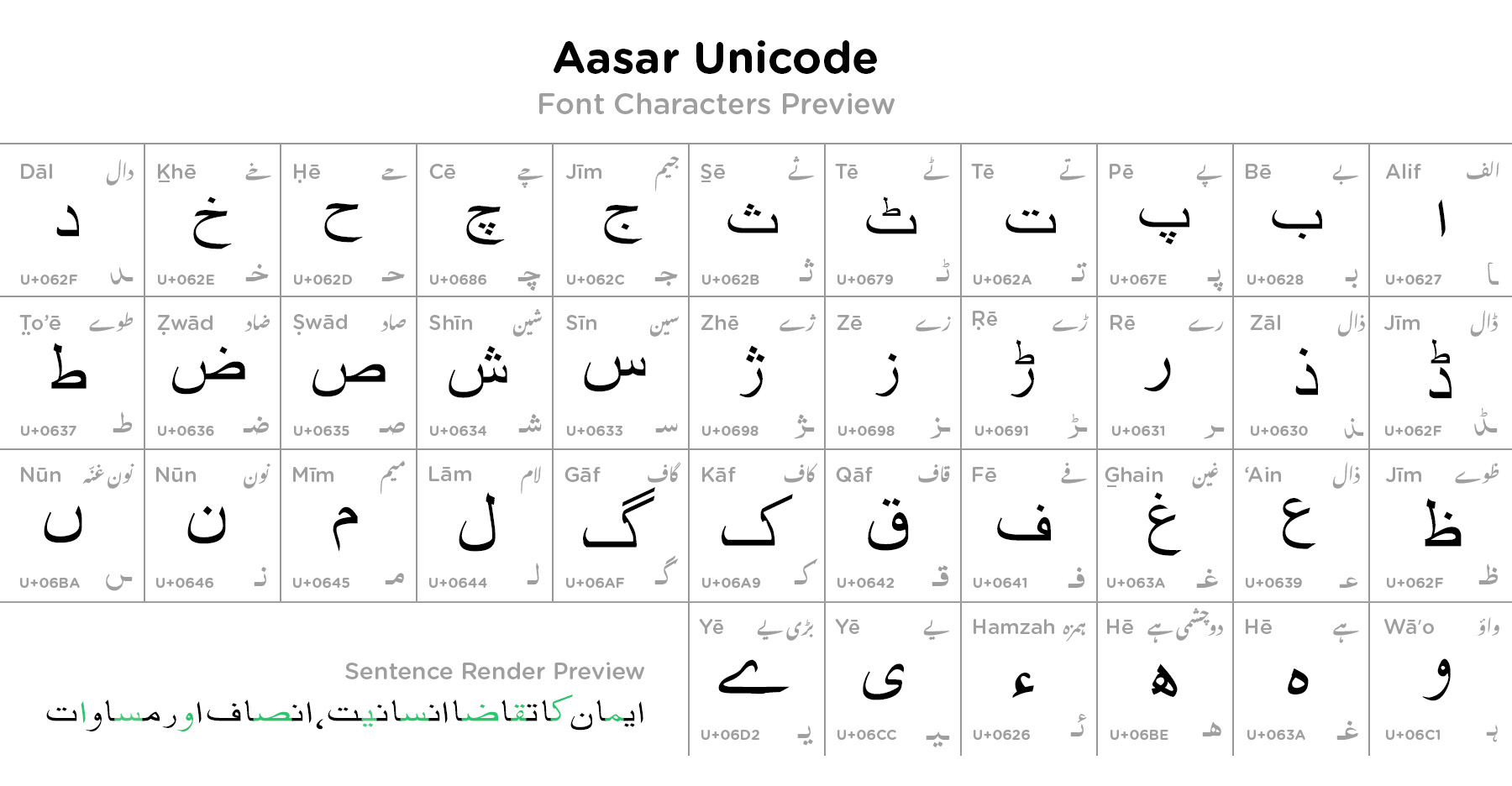
Aasar Unicode is a modern Arabic calligraphy font carefully based on the Naskh script. It was crafted by Syed Manzar Hasan Zaidi and released for use in October 2017. It is a trademark of Axis SoftMedia Pvt. Ltd., headquartered in Mumbai, India, since 2008. Although the font incorporates elements of the Naskh script, it does not strictly follow all the rules. It also contains some modern elements, which can be seen particularly in the overall structure and letter connections. The font has a simple and elegant design that is easy to read. While thicker than some fonts, the strokes aren’t uniformly bold. The font has a high-stroke contrast, which makes it look more dynamic and interesting. Due to its elegance, the font could be suitable for formal invitations, certificates, or branding materials. The font has a broad character set, having 444 characters and 497 glyphs. Moreover, it is compatible with 11 Unicode blocks, including Basic Latin Latin-1 Supplement, Spacing Modifier Letters, Arabic, General Punctuation, Greek, and Coptic, among others. It is, though, only offered in regular font size.